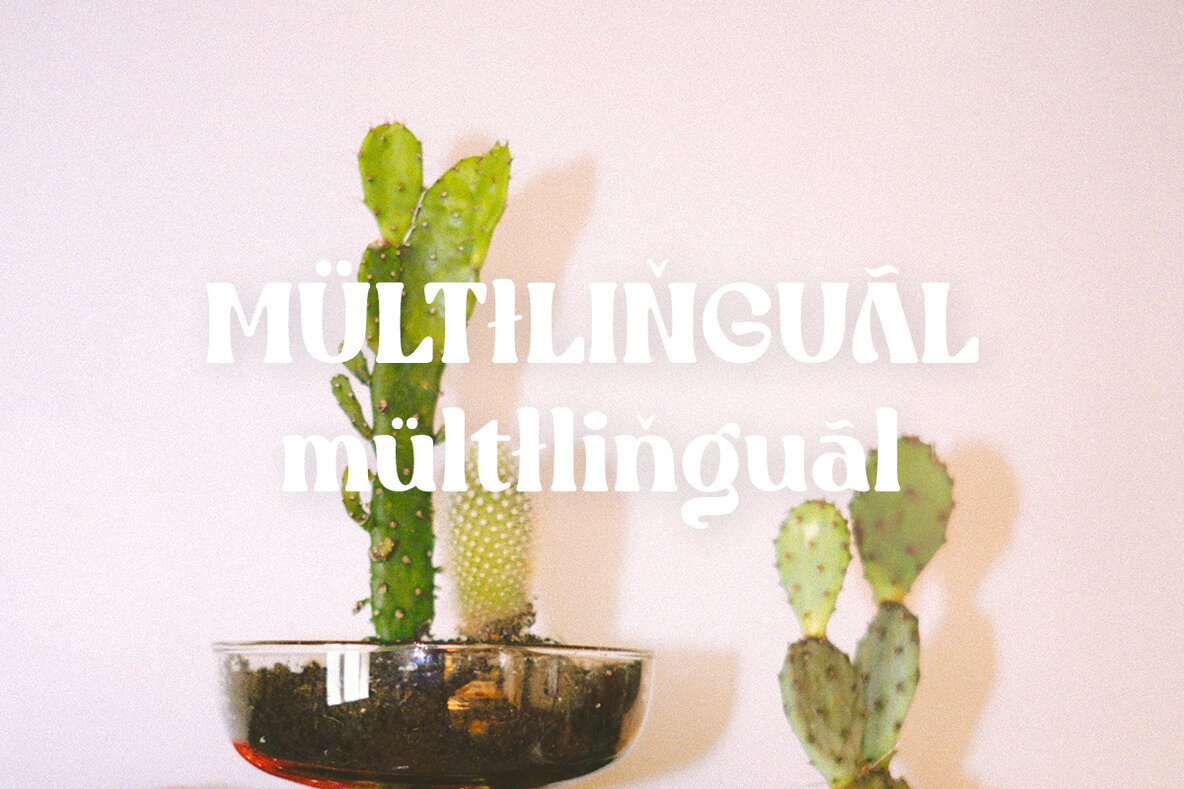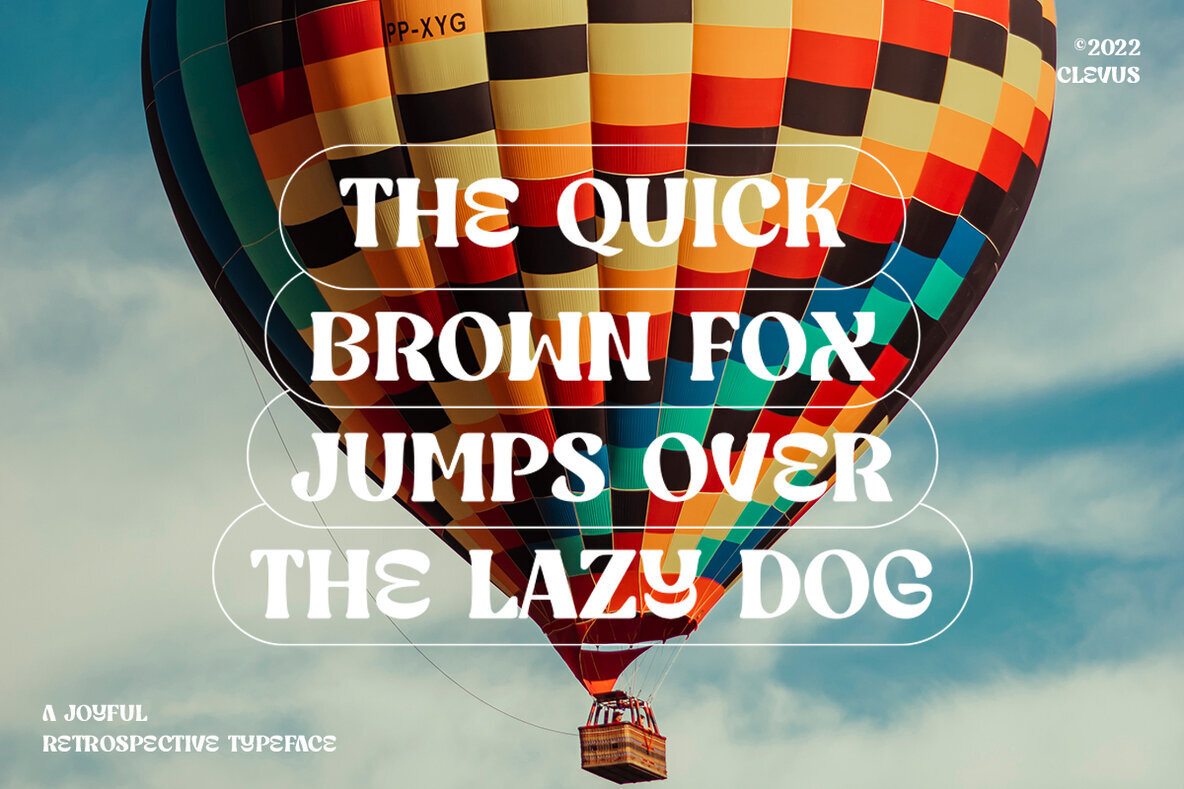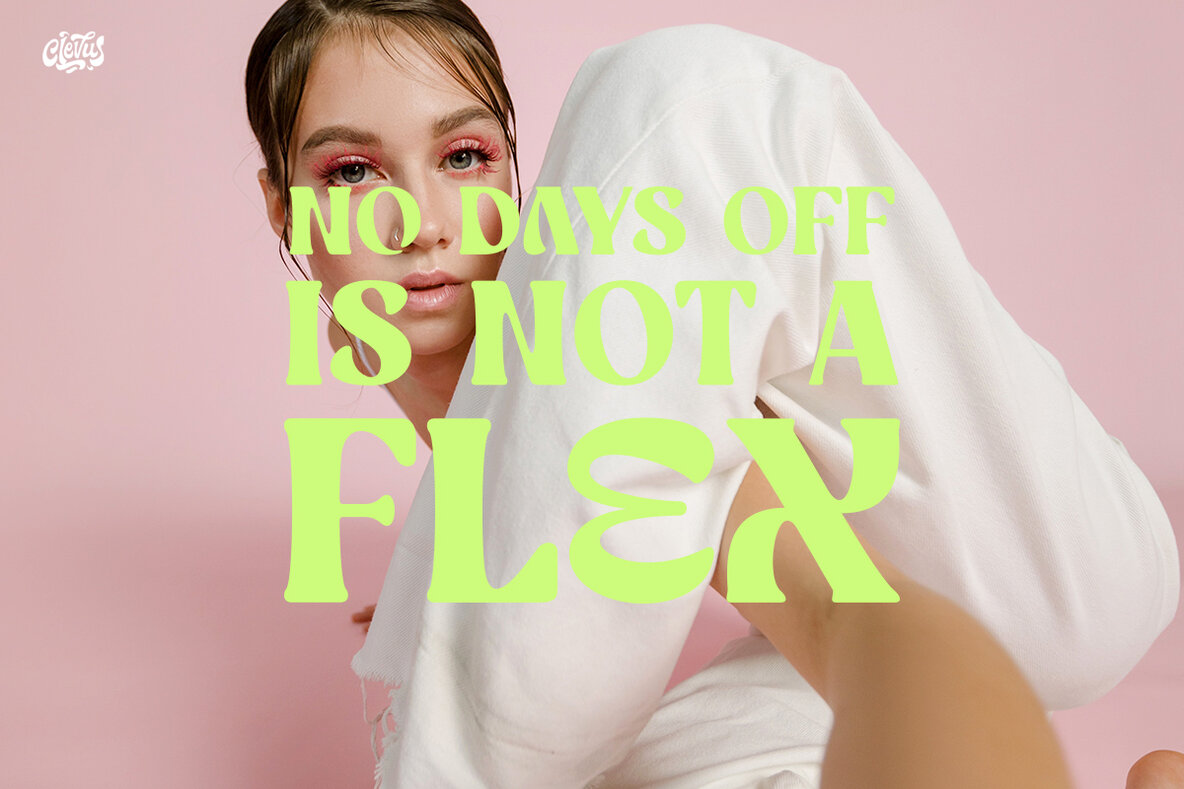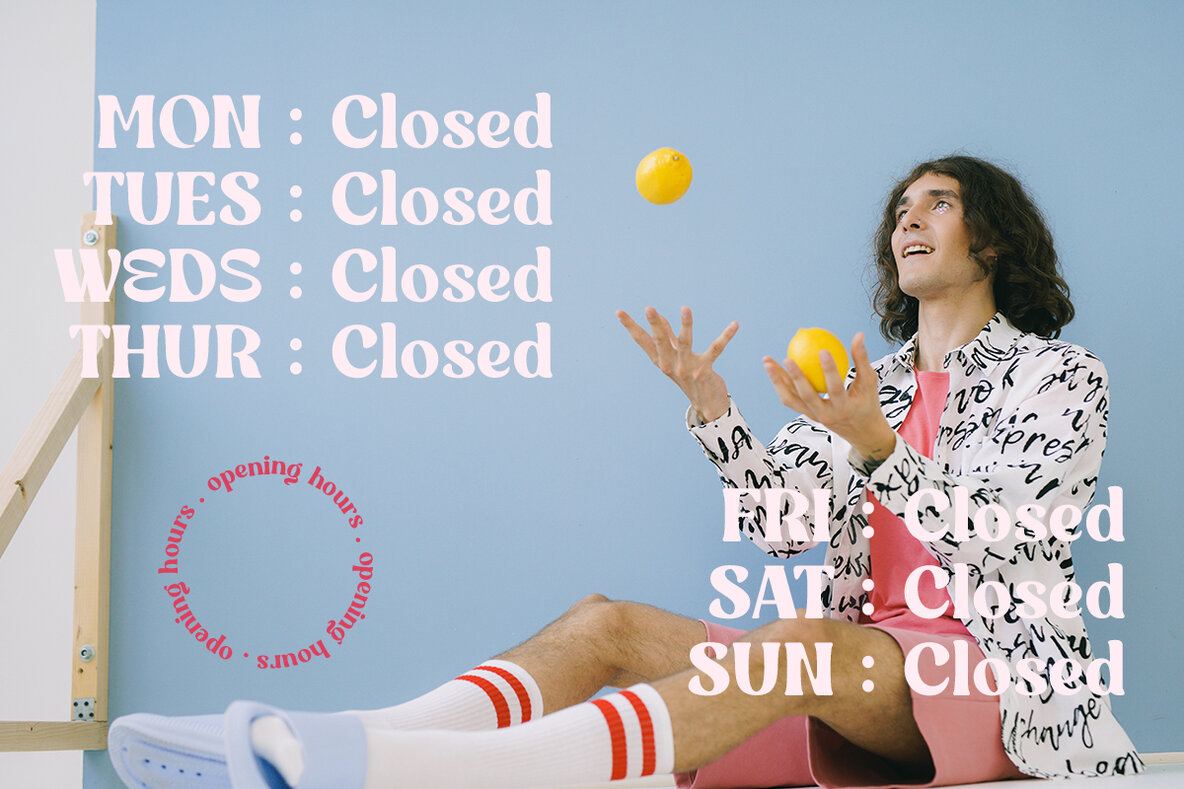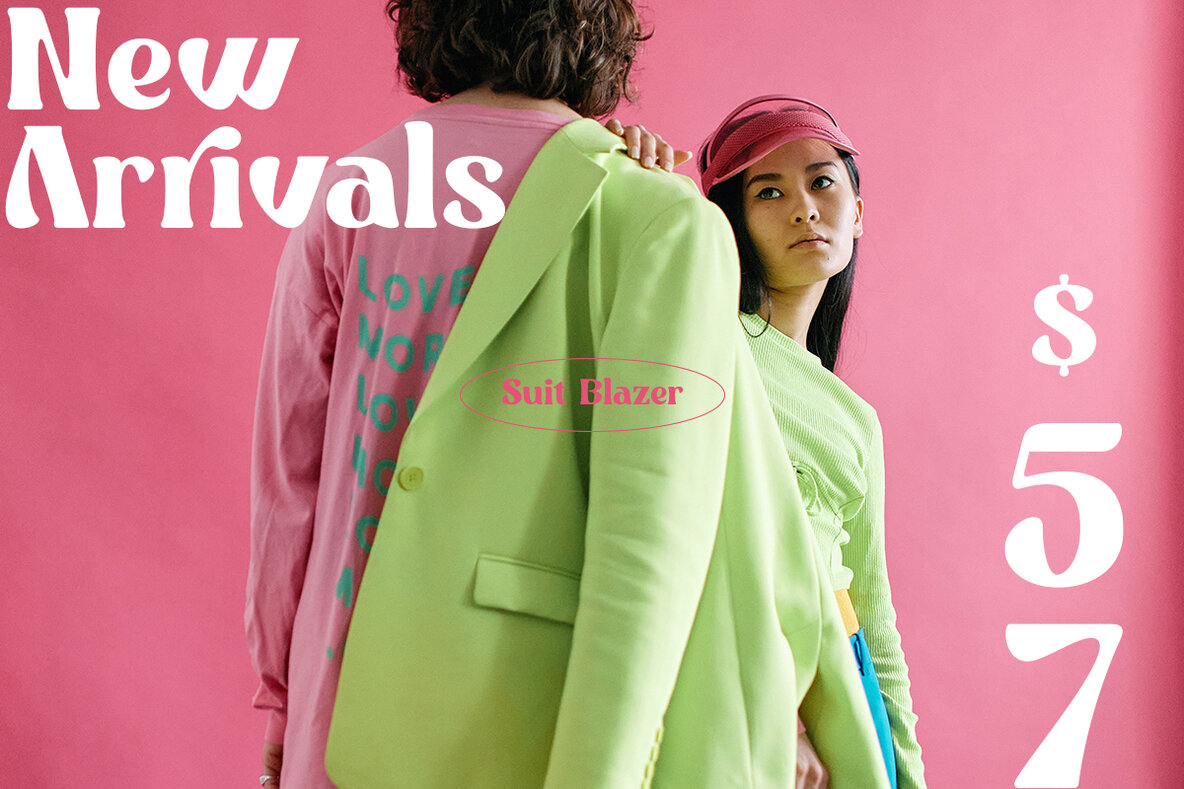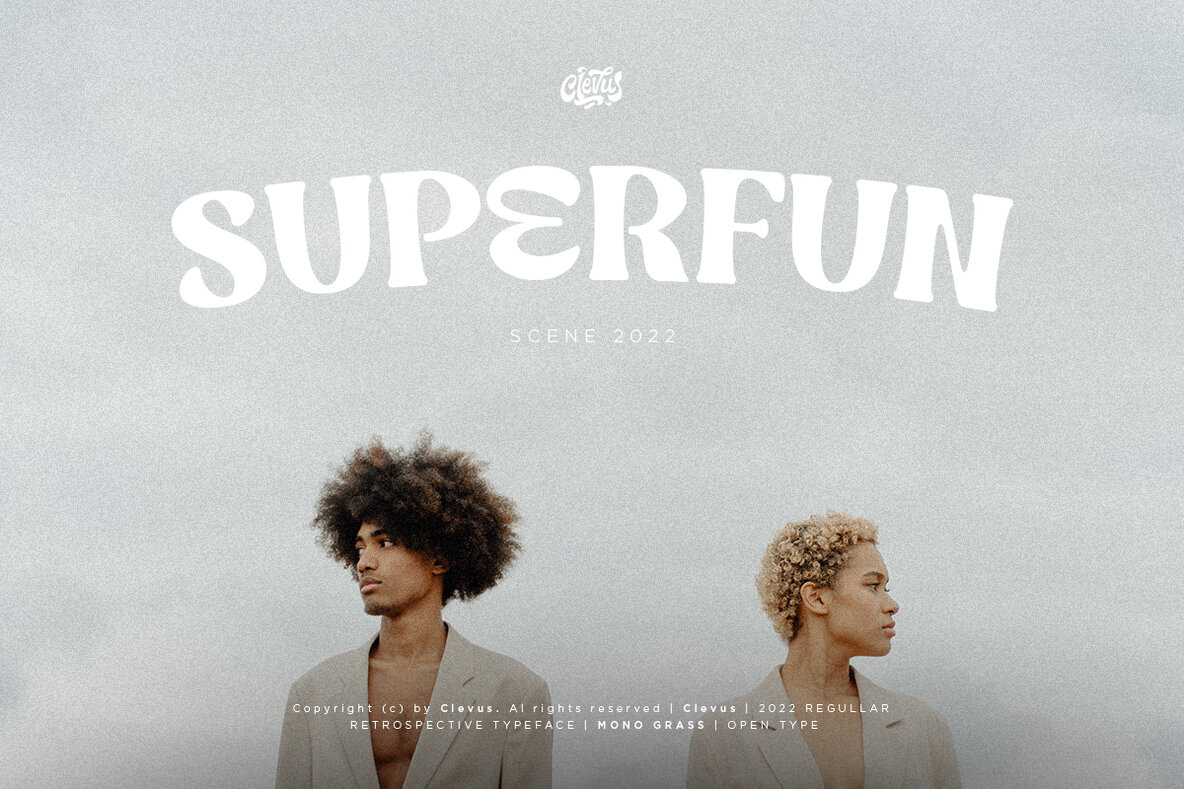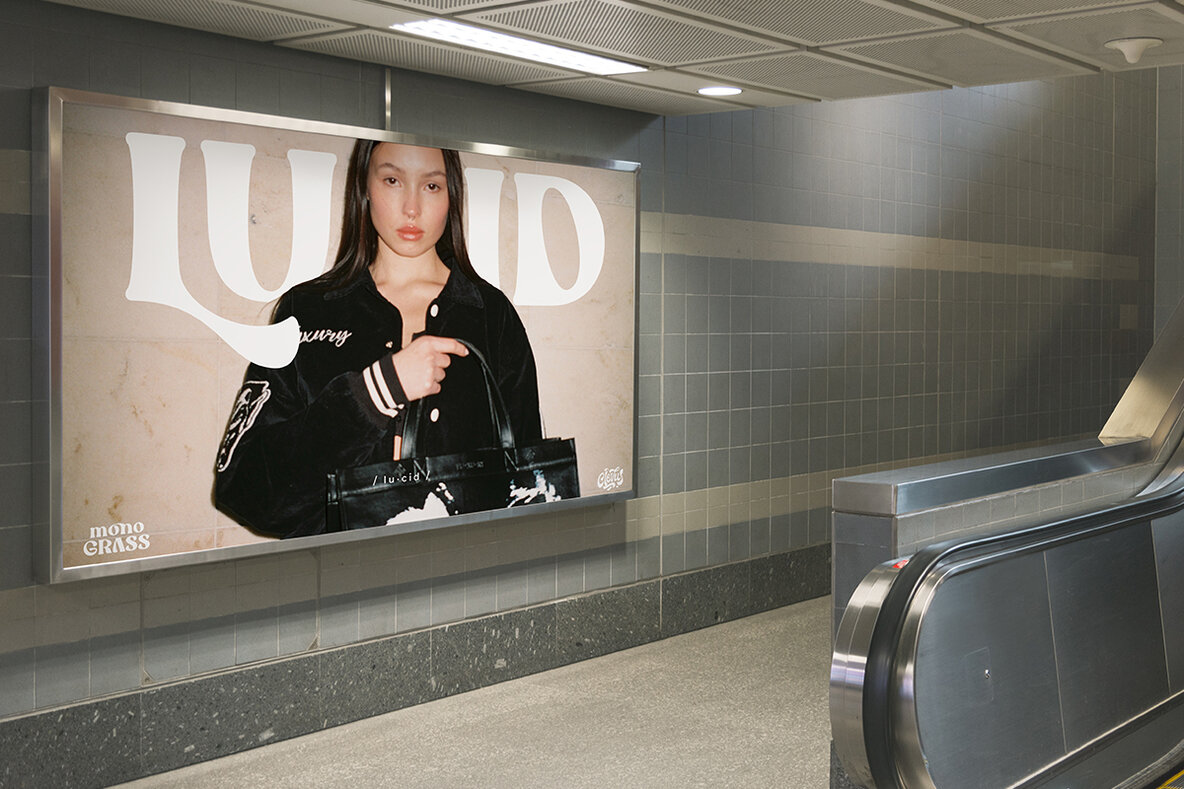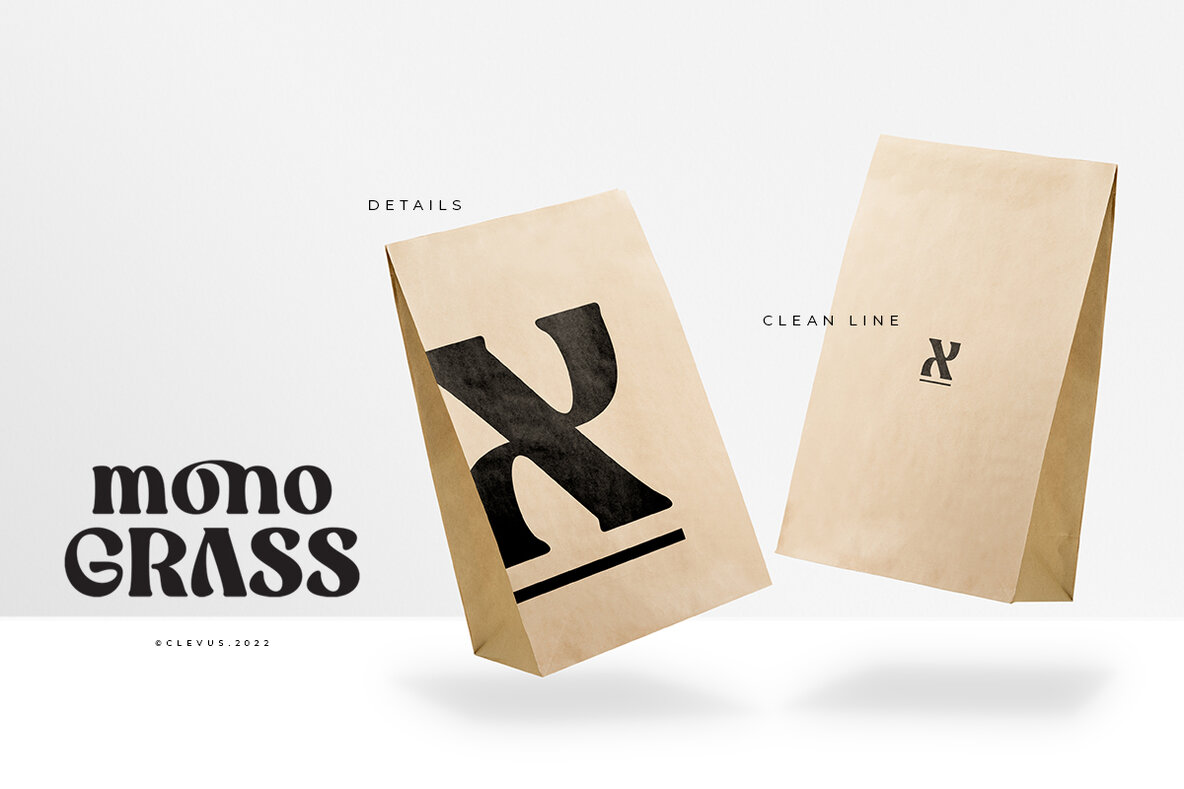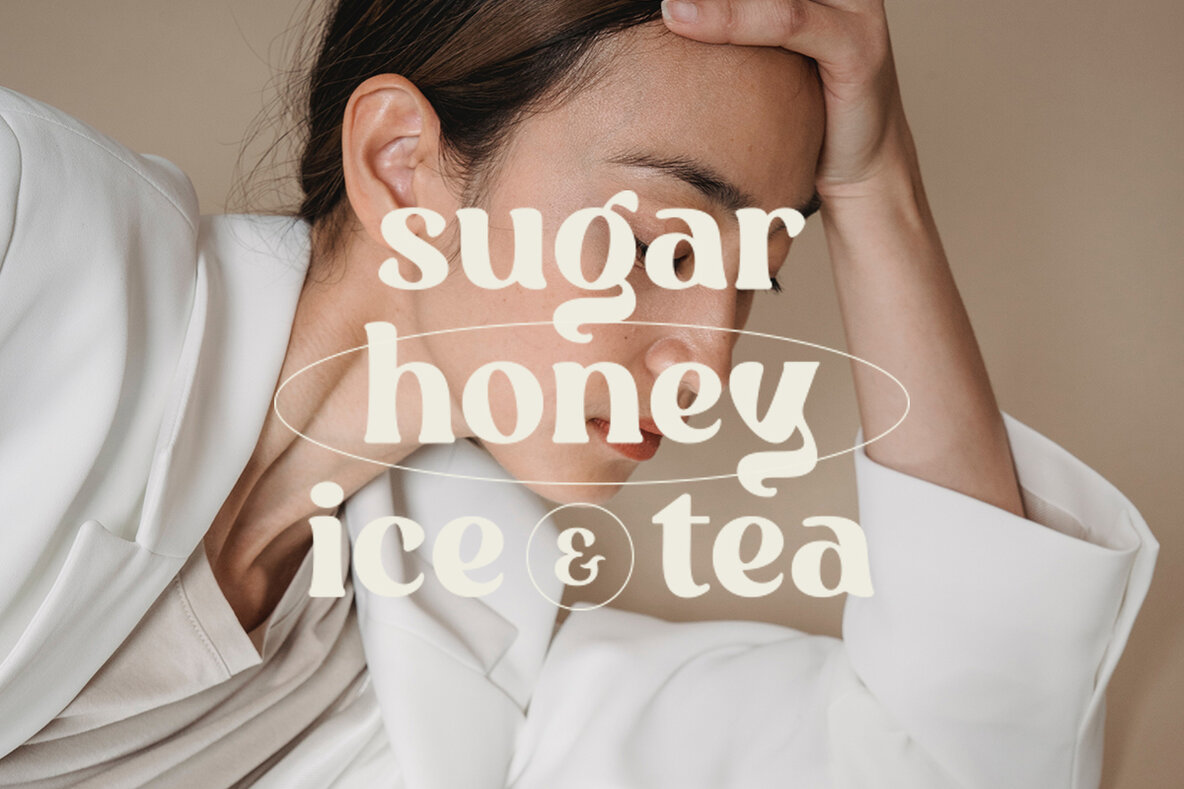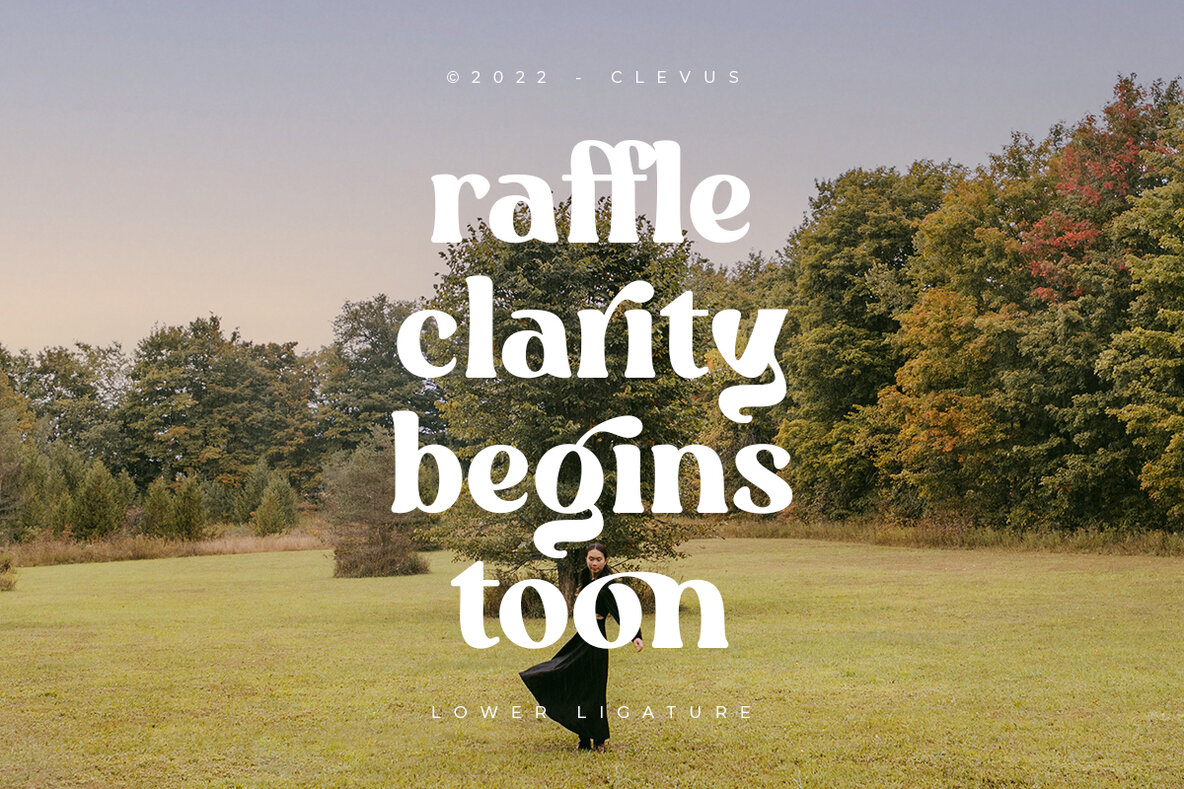
Mono Grass Font
Mono Grass Regular
Step back into the vibrant decades of the 60s and 70s with Mono Grass, a nostalgic typeface that exudes joy and retro charm. Each letter carries a unique crafting that promises to infuse energy and character into your projects. Ideal for a wide array of creative applications, from magazine imagery and inspirational quotes to branding, logos, posters, and more. Mono Grass is designed to be both accessible and versatile, allowing users to explore its full potential without limitations. Stay tuned for upcoming updates that may introduce additional glyphs and extended language support.Mono Grass: A Retro Revival